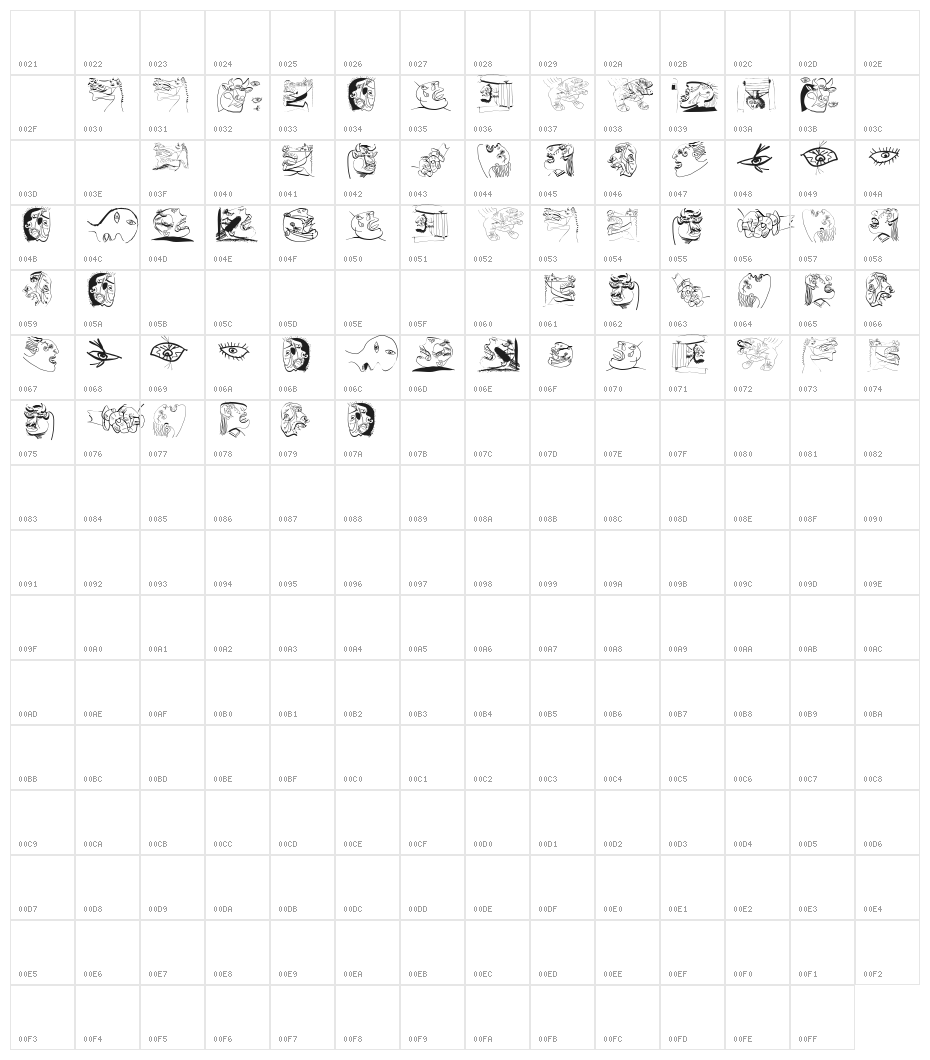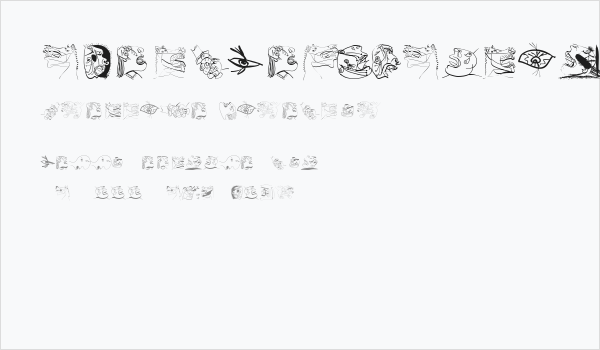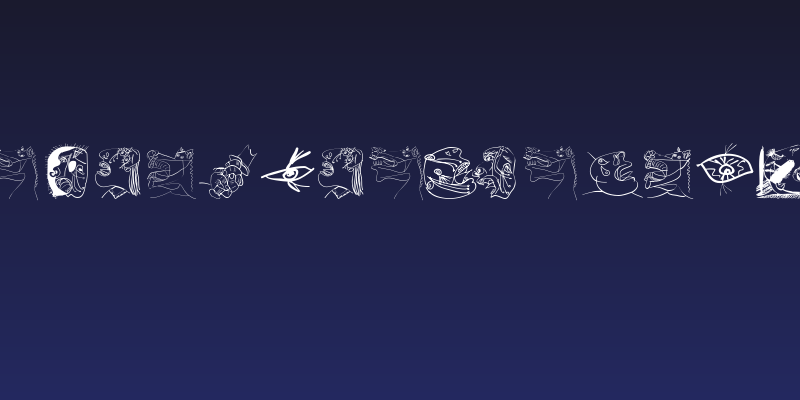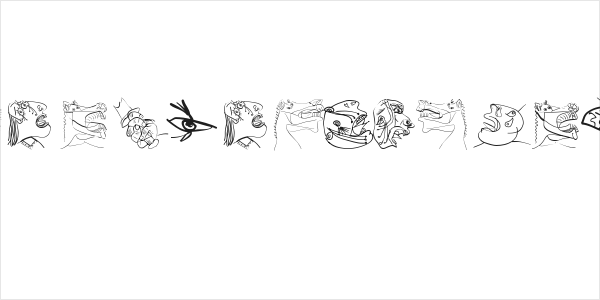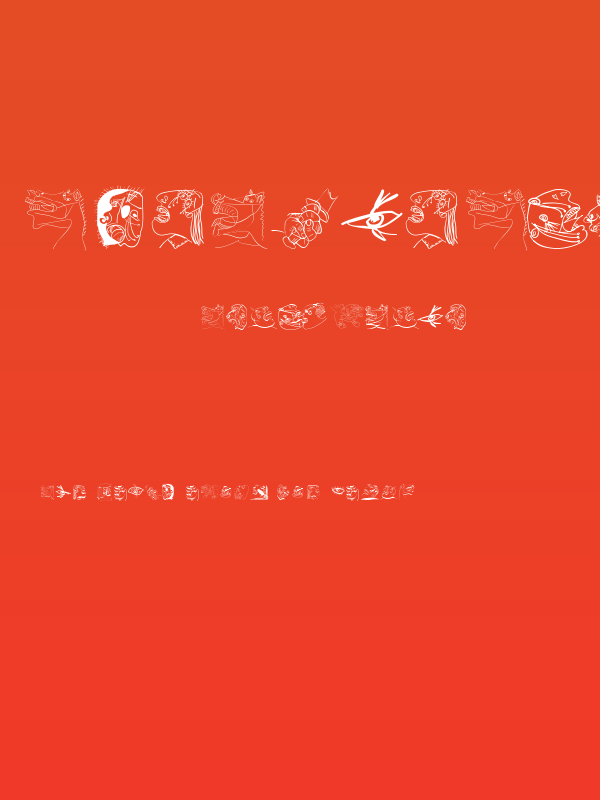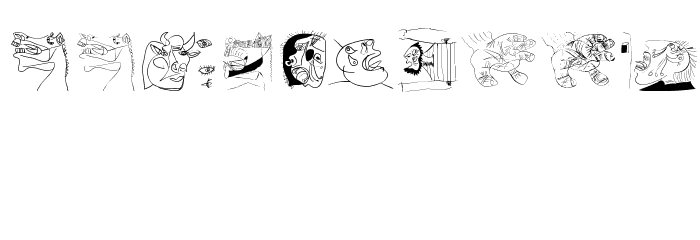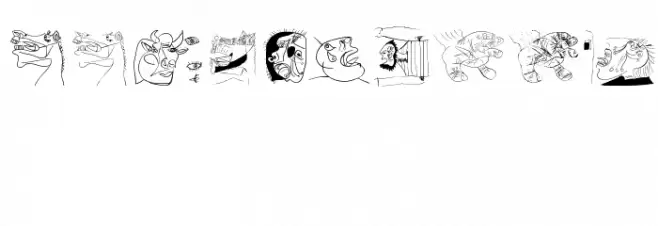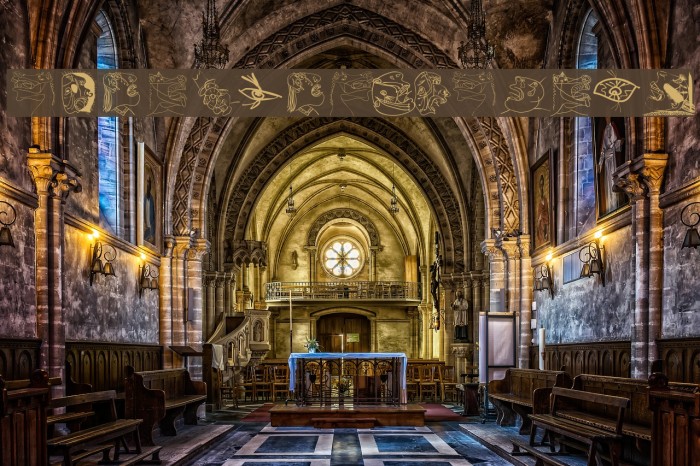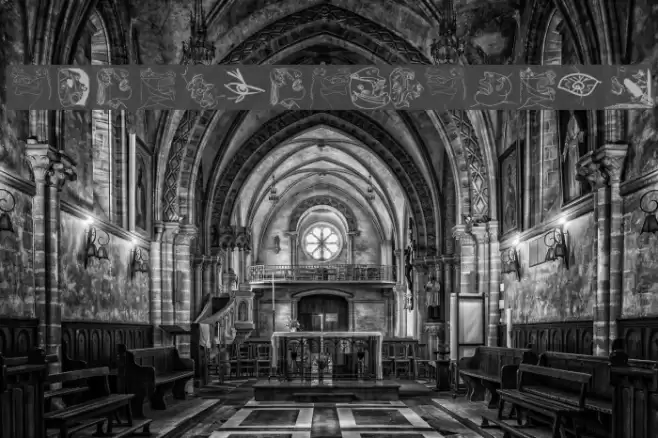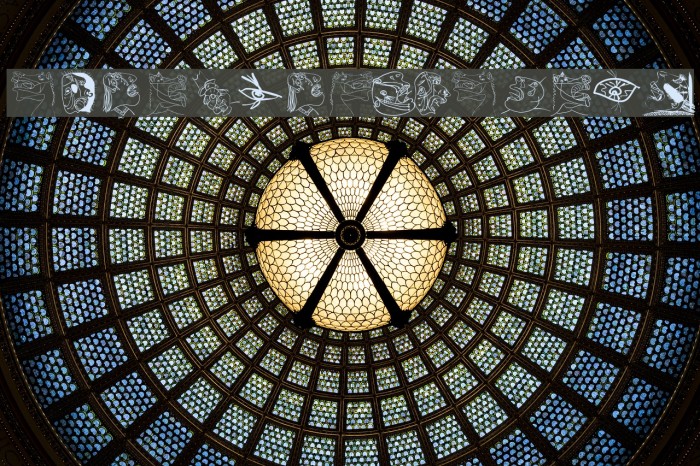
SketchesOfSpain Font
SketchesOfSpain Description
This unique and artistic font is inspired by abstract and surrealist art, featuring intricate and expressive line drawings within each character. The design incorporates elements reminiscent of Picasso's style, with each letter and symbol crafted as a miniature piece of art. The characters are highly decorative, with a focus on visual storytelling through abstract forms. This font is not intended for traditional readability but rather for artistic expression and creative projects. The intricate details and artistic flair make it a standout choice for projects that aim to convey a sense of creativity and uniqueness.
| Overall Style | Artistic, Surrealist, Abstract |
| Use Case | Artistic projects, Creative displays |
| Proposed Projects | Ideal for art exhibitions, creative posters, album covers, and any project seeking an artistic and unique visual impact. |